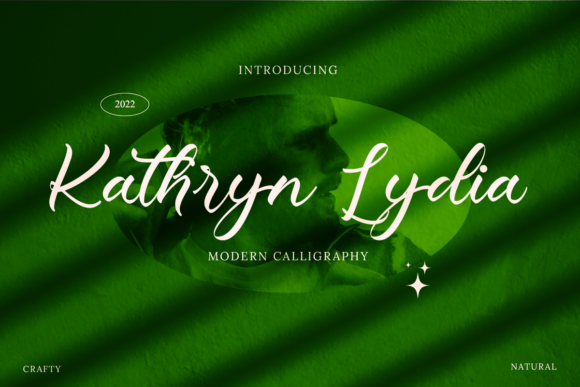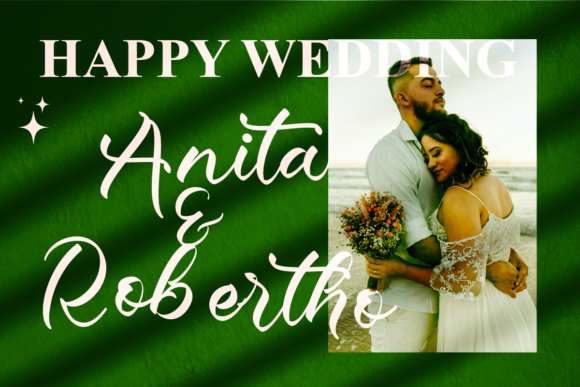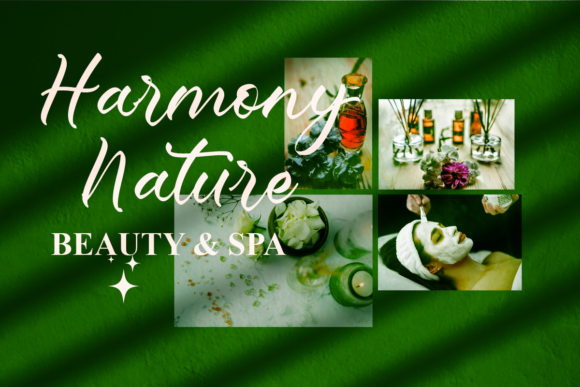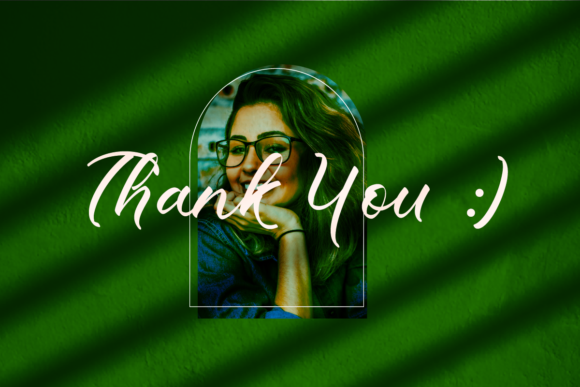
About Kathryn Lydia Font
Kathryn Lydia is an enchanting handwritten font. This versatile script font has a wide spectrum of applications ranging from greeting cards to headlines and is guaranteed to add a romantic feel to your next project.